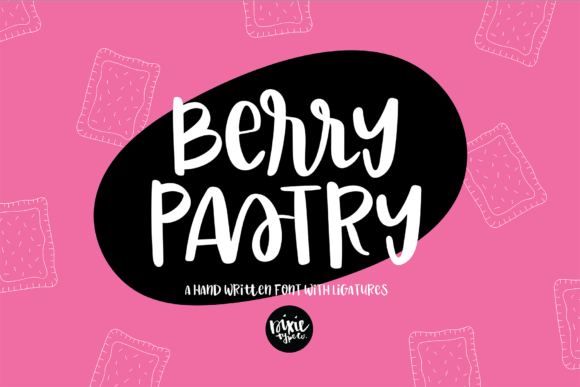
Berry Pastry Font
Berry Pastry is a modern calligraphy script, with a smooth line, dancing baseline, and elegant touch. It can be used for various purposes such as headings, logos, birthday invitation, t-shirt, letterhead, posters and much more.